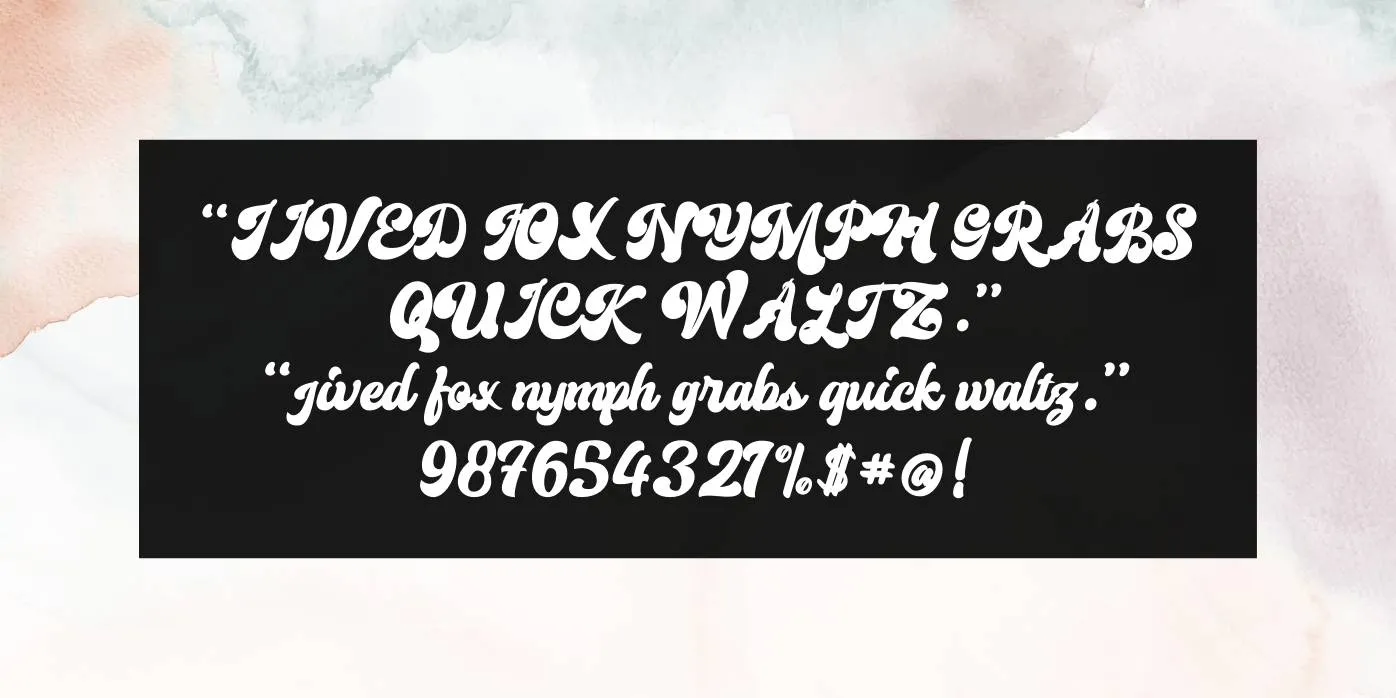
Creamer Font
Creamer Font is a script typeface that was designed by Hannes von Döhren in 2009. The design of the letterforms is based on the works of Rudolf Koch and Hermann Zapf. This Font contains a variety of OpenType features, such as old-style figures, fractions, and ligatures. It is available in both regular and bold weights.
The typeface family works well with pairing disclaimer font which is also a fancy category typeface you can have this from our website easily. The old-style figures give it a vintage feel, while the ligatures add a touch of sophistication. Whether you’re looking for a font for your next project or just want to explore something new, Creamer Font is a great choice.